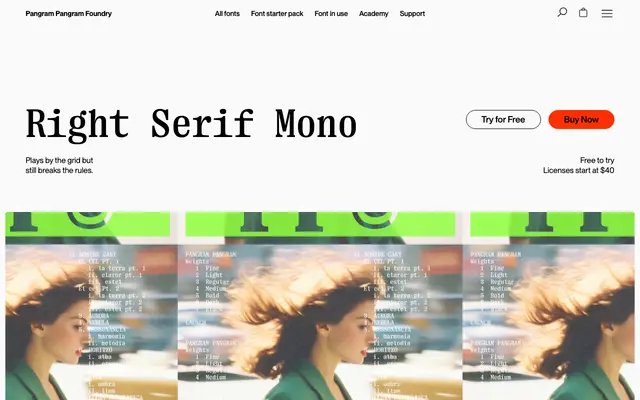
PP Right Serif Mono
Pangram Foundry · Alex Slobzheninov · 2025
A serif monospace by Alex Slobzheninov that takes the Right superfamily into fixed-width territory without the usual deadpan mono feel.
A serif monospace built off the wider Right system, with seven weights from Fine to Black plus matching italics for fourteen styles in a variable file. Equal widths give it the grid discipline of code, but the proportions lean into the quirks of the Right family so paragraphs and large display lines keep some warmth. Useful for identity systems that want a bit of tech meets editorial, creative coding work, zines and infographics, and it pairs cleanly with Right Serif or Right Grotesk Mono.
Pangram lists it under Monospace, Serif and Variable. It sits inside the wider Right superfamily, taking the proportions of Right Serif and refitting every glyph to a single fixed width.